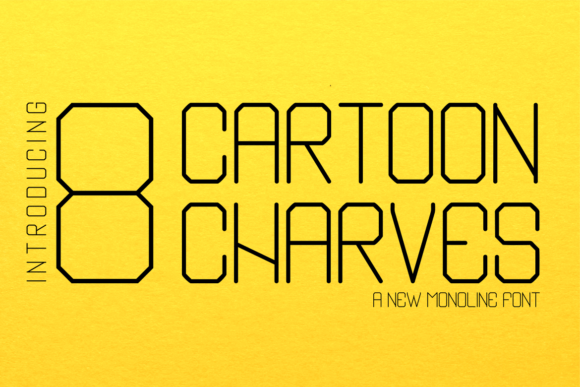
Cartoon Charves, Fun Comic Font for Kids & Party Graphics
Cartoon Charves is a line‑style techno sans serif font that mixes clean readability with fun, retro‑inspired character. Its unique glyph shapes give it a slightly vintage or cartoon‑ish flavor, making it great for projects that need a playful but still legible typeface. As a digital font file, it’s ready to use in design software, cut‑file workflows, print‑on‑demand, and other creative applications.
- Friendly, cartoonish display aesthetic — perfect for playful, nostalgic, or child‑friendly designs
- Unique styling that sets designs apart — not a generic sans‑serif, but a font with character and personality
Q: What style is Cartoon Charves?
A: It’s a line‑style techno sans serif with retro/cartoon‑inspired character — fun, readable, and suitable for display text or creative designs. -
| Style / Vibe | Retro / cartoon‑inspired, line‑style techno sans serif | Neutral sans‑serif — minimal & modern | Playful cartoon display with rounded or exaggerated shapes |
| Readability | High for display and medium‑size text — clean yet stylized | Very high for body text and small sizes | Medium — best at larger sizes, may lose clarity for small text |